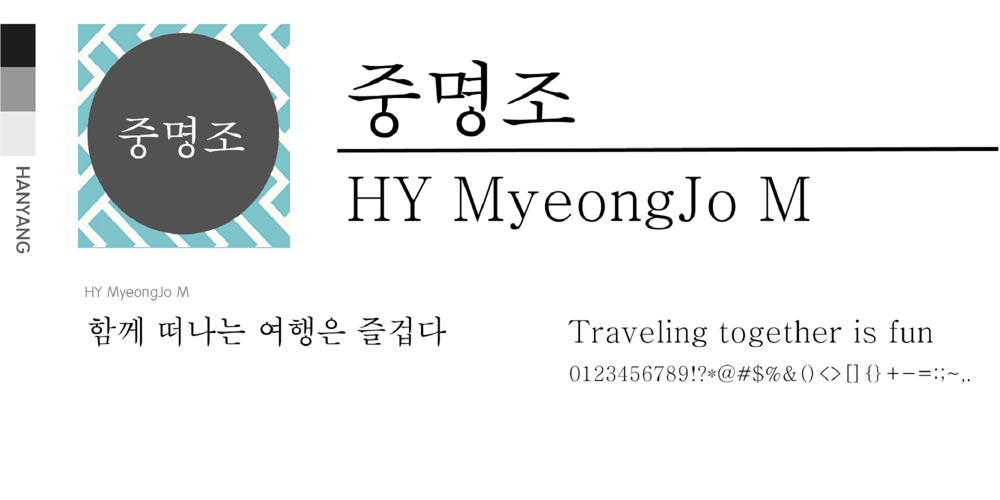
HY MyeongJo M
HY MyeongJo M font
HY MyeongJo M Font Family was designed by font hy and published by HY Font. HY MyeongJo M contains 1 styles and family package options. HY Myeongjo M font has appropriate stroke thickness to minimize visual fatigue.The traditional Myeongjo style and excellent readability of the HY Myeongjo M font are suitable for body text in books, magazines, newspapers, etc.The HY Myeongjo M font can be used for body text on web pages.